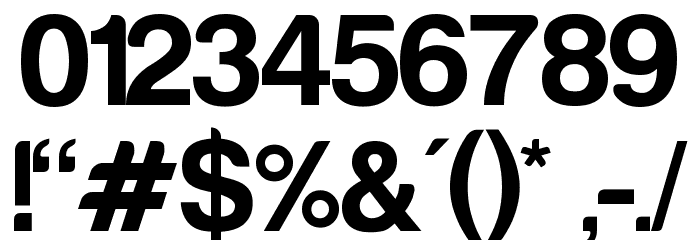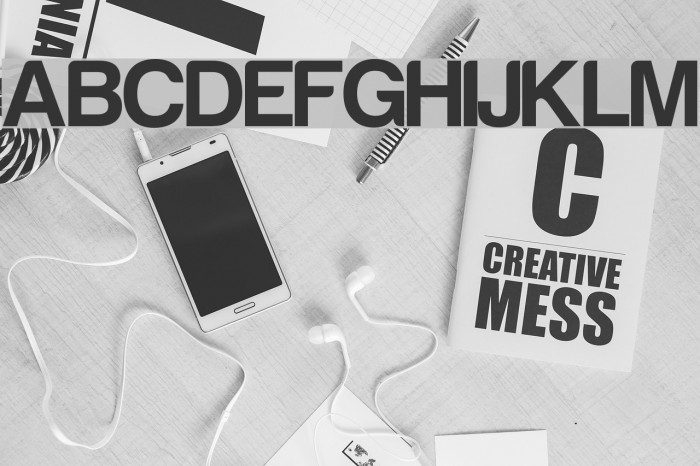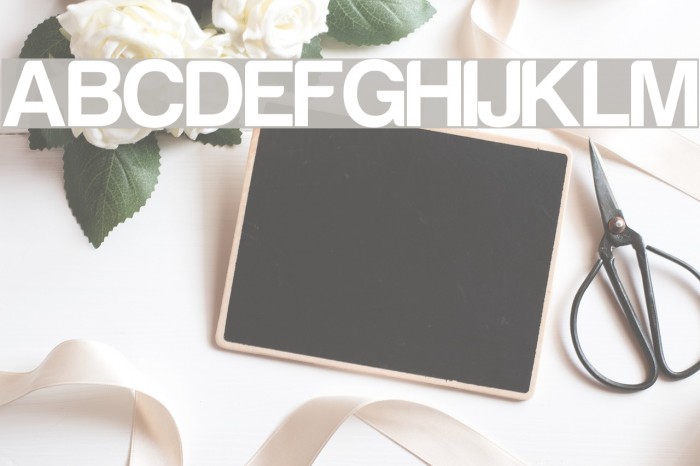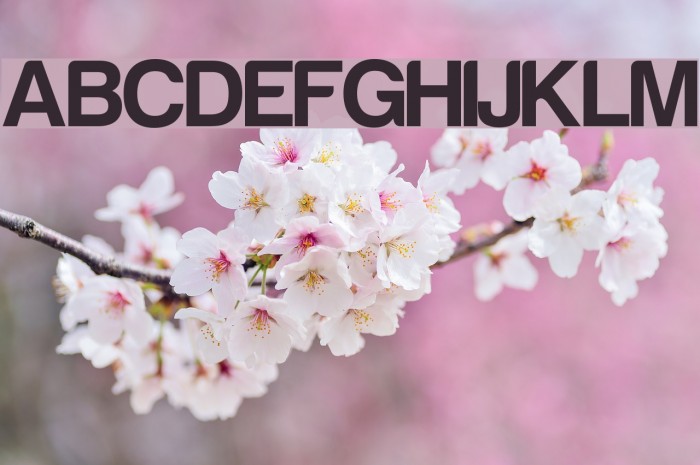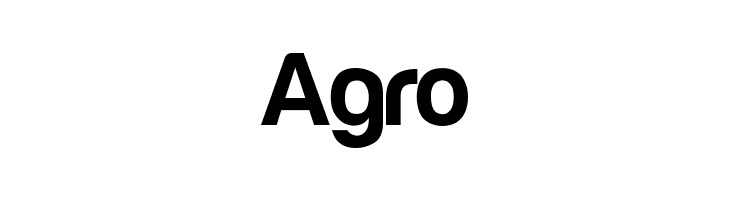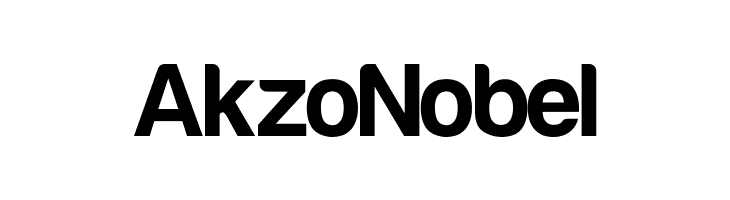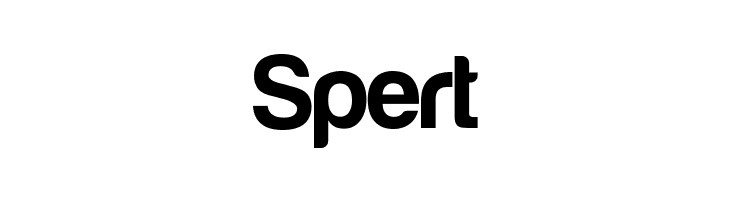
Harabara Bold Font
Harabara Bold Description
This font features a bold and modern sans-serif style with clean, geometric lines and a strong presence. The characters are uniformly thick, providing a consistent and robust appearance. The uppercase and lowercase letters are well-proportioned, with rounded edges that soften the overall look. The numerals are clear and easily distinguishable, making them suitable for various applications. The special characters are designed to match the boldness of the alphabet, ensuring a cohesive look across all text elements.
A bold, modern sans-serif font with geometric lines and rounded edges from Sans Serif fonts.